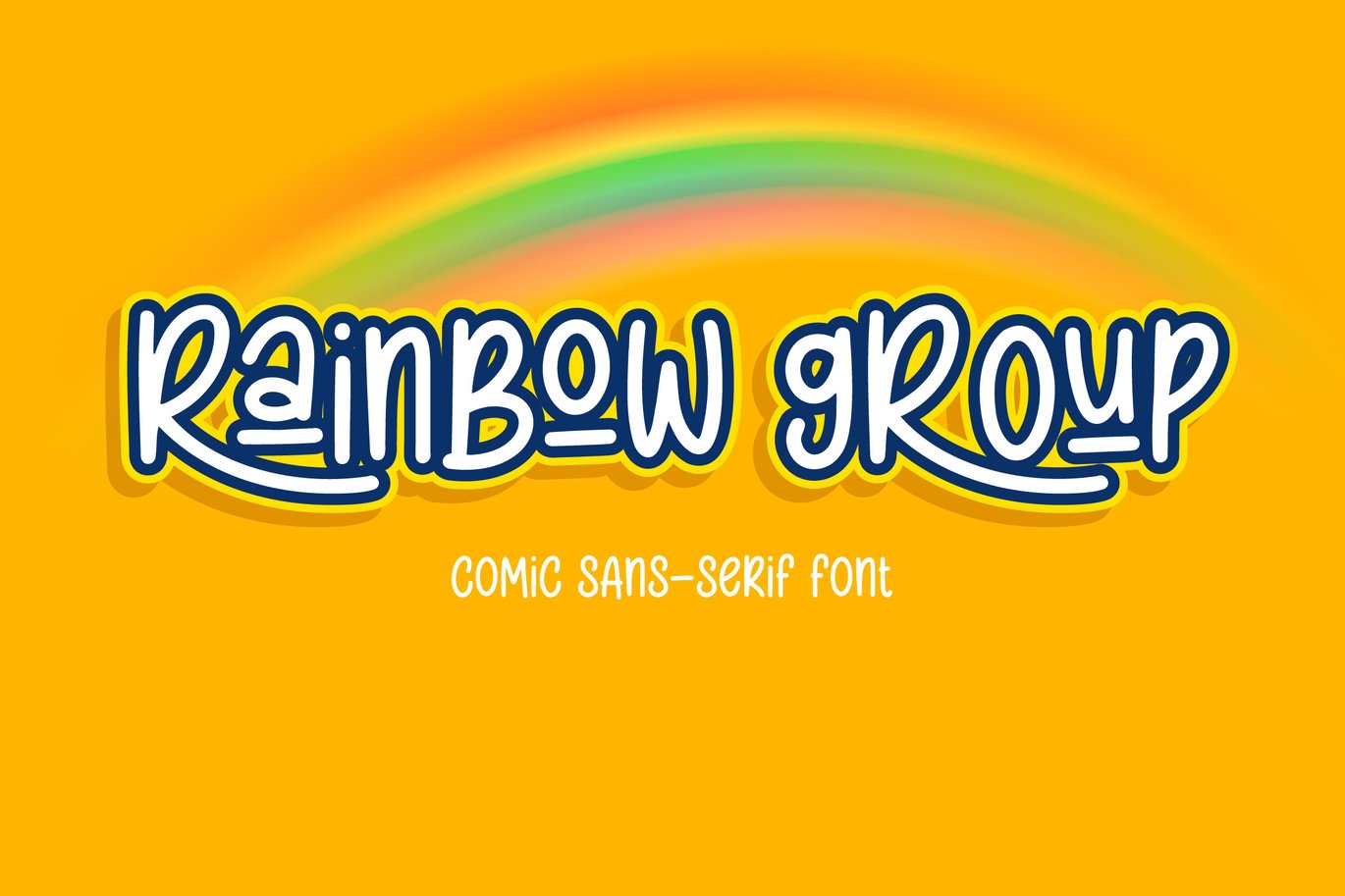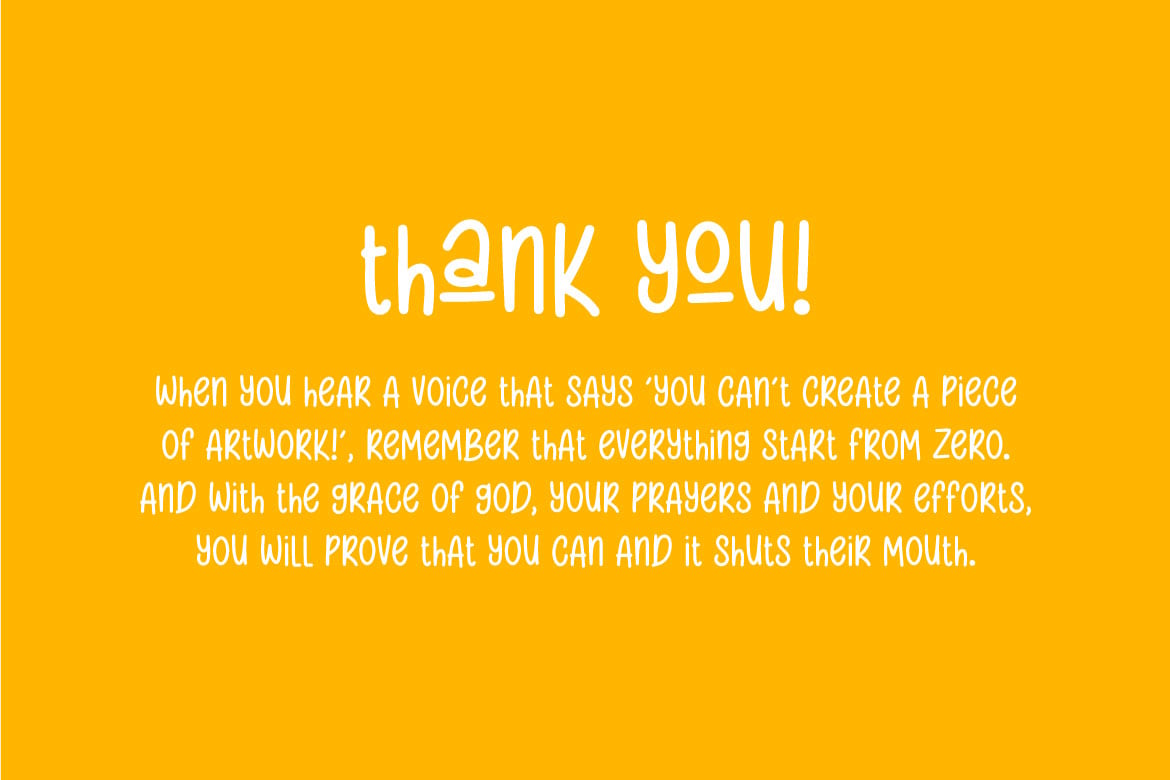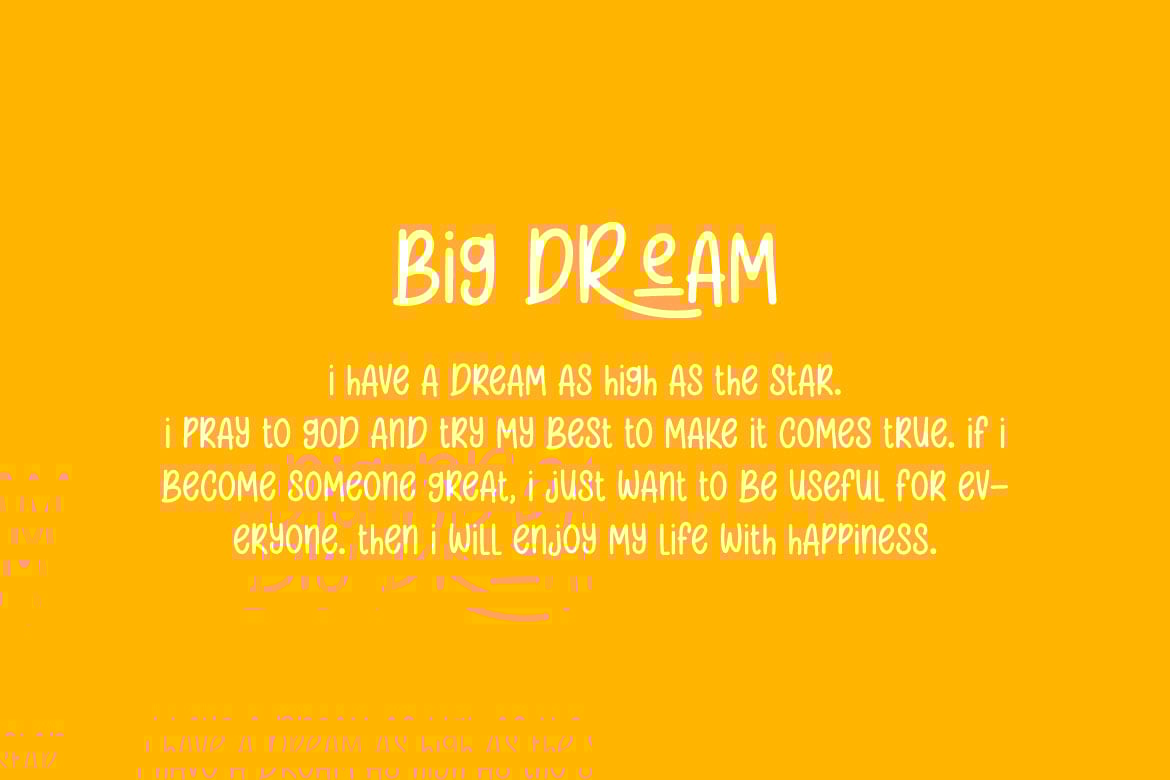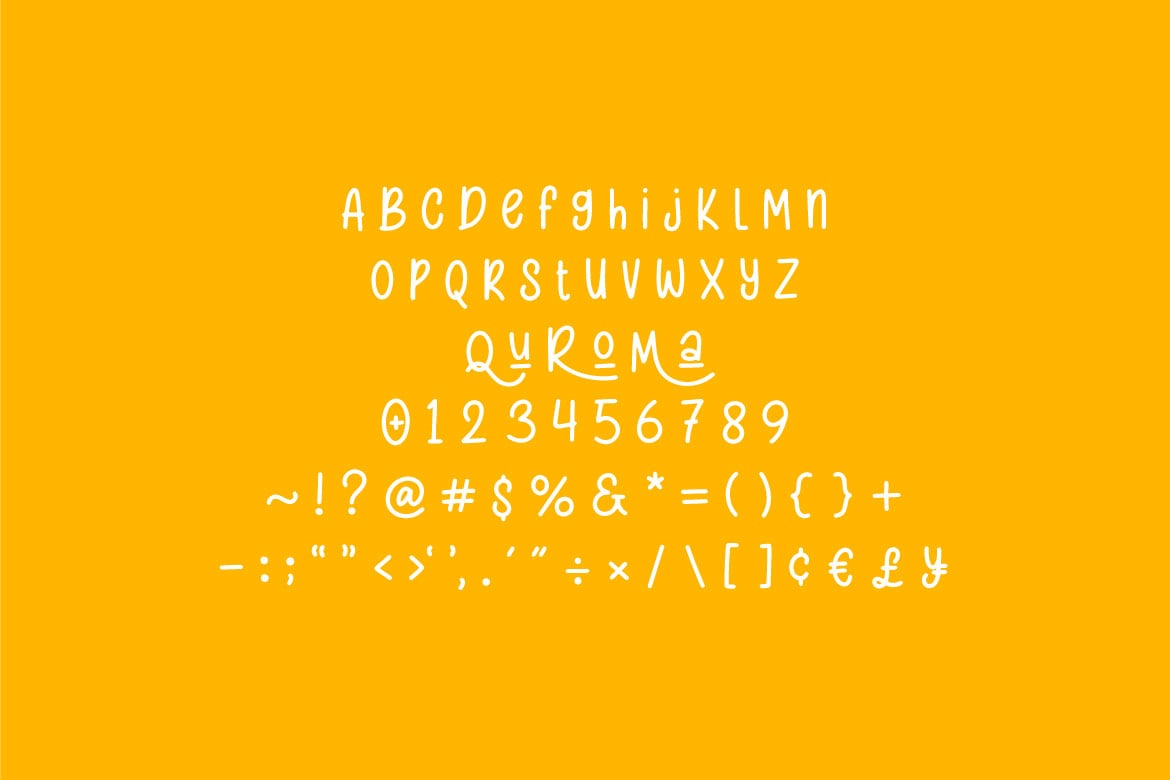
Rainbow Group – Comic Sansserif Font
Hello! RAINBOW GROUP is a comic display font with fun and playful style. This font brings a happiness in the each word.
Rainbow Group can be used in any works such as comic book, school, kindergarten, story book, kids’ stuff brand, children book, poster, advertisement, social media content, logo and many more.